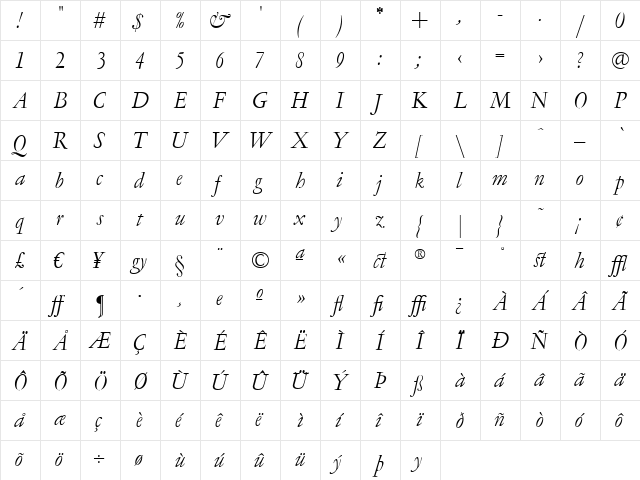
LTC Garamont Display Italic Italic
| Designer | Frederic Goudy, Jim Rimmer |
Design Context for LTC Garamont Display Italic Typeface
LTC Garamont Display Italic brings ornamental detail and strong personality to headlines and identities, where visual impact matters more than quiet functionality. The dynamic lean of this cut emphasises speed and emphasis in any layout.
Font Pairing: Pair with a clean neutral sans-serif for body copy to let LTC Garamont Display Italic's character lead without overwhelming the composition.
Pro Tip: Treat LTC Garamont Display Italic as the centrepiece of your typographic hierarchy. One strong heading set in a decorative face can carry an entire layout.